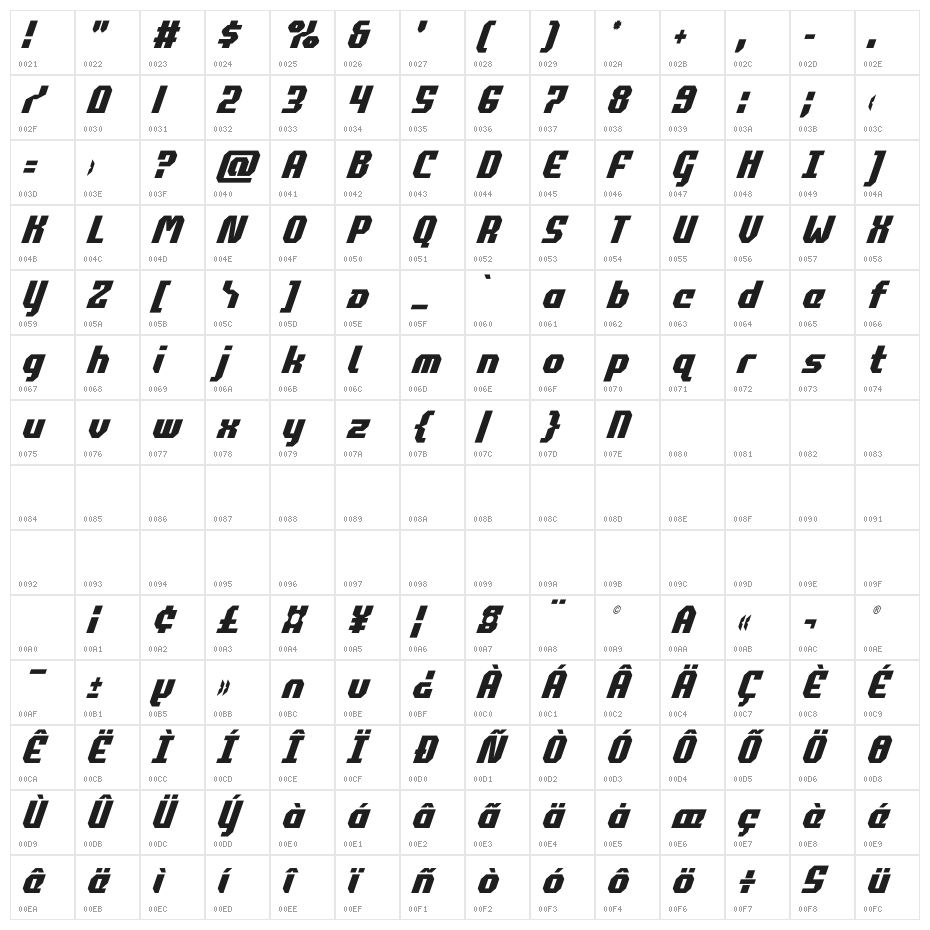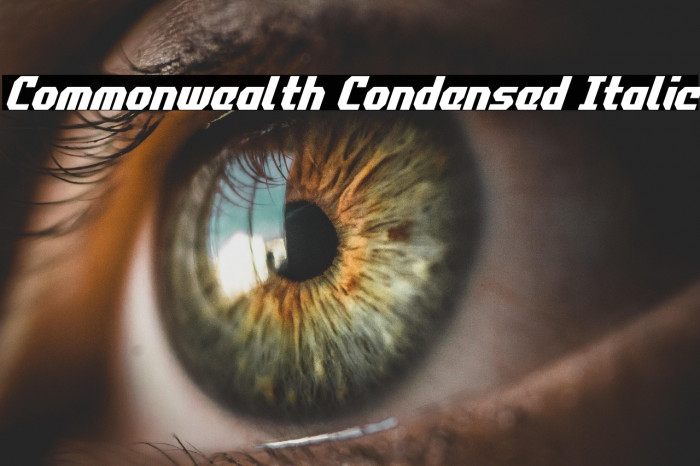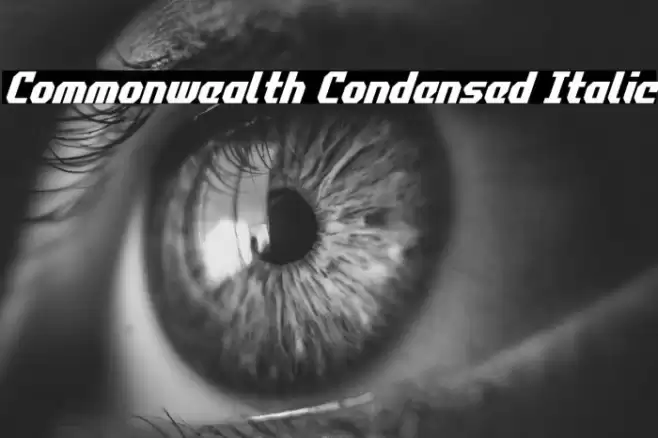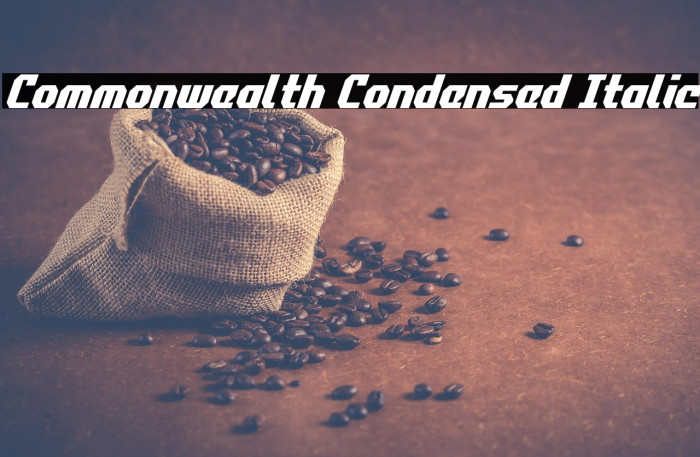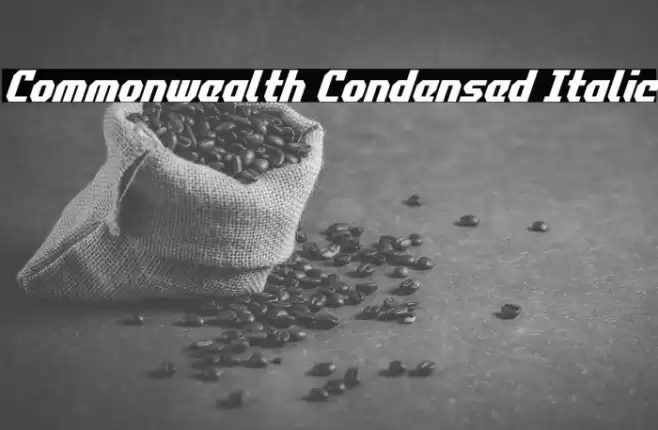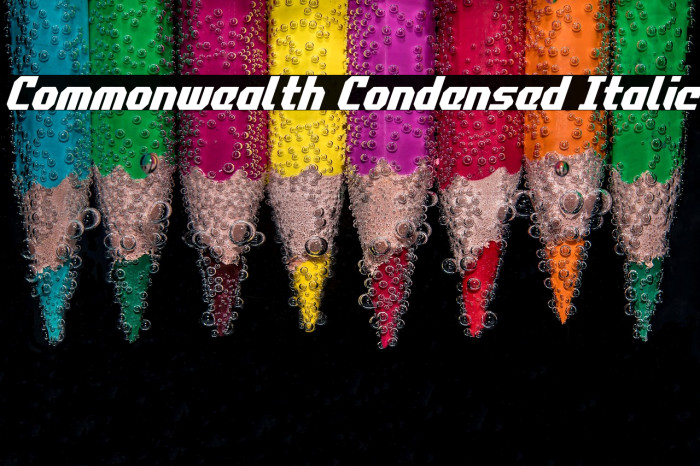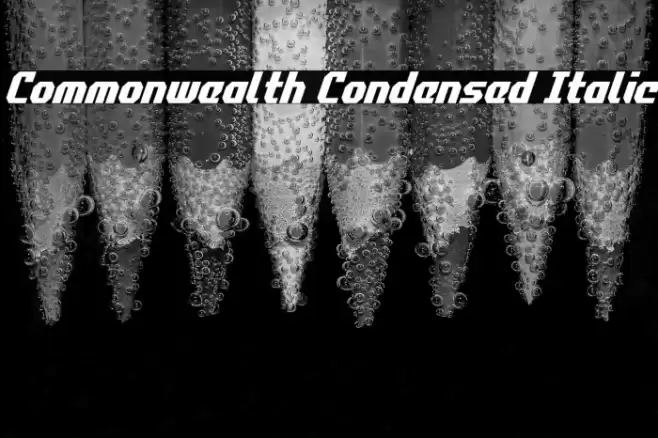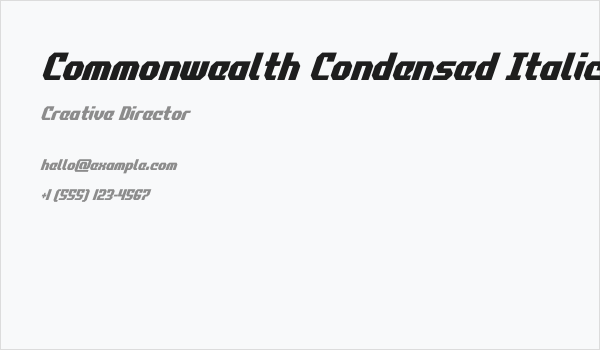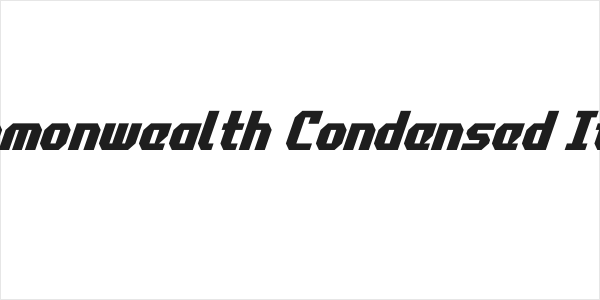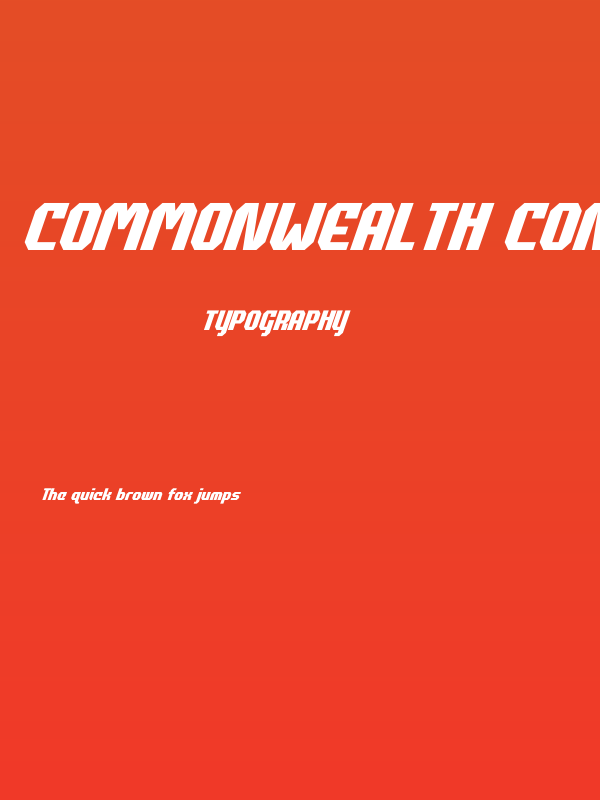
Commonwealth Condensed Italic Font
Commonwealth Condensed Italic Description
This font features a bold, condensed style with a distinct italic slant, giving it a dynamic and energetic appearance. The characters are angular and geometric, with sharp edges and a modern aesthetic. The uppercase and lowercase letters maintain a consistent style, with the lowercase mirroring the uppercase in form but with a slightly reduced height. Numbers and special characters are designed to match the overall bold and angular theme, ensuring uniformity across all glyphs. The condensed width allows for efficient use of space, making it suitable for impactful headlines and titles.
| Proposed Projects | Ideal for sports branding, dynamic posters, modern advertising, and any project requiring a bold, impactful typeface. |